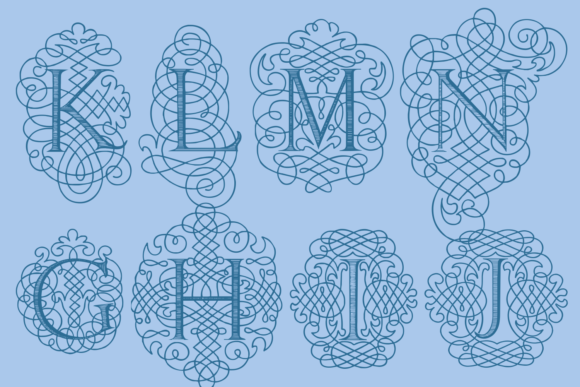
Introducing CalligraphiaLatina, the enchanting display font that will captivate your designs with its intricate beauty. Immerse yourself in a world of elegance and sophistication as this masterpiece unfolds its charm upon your creations.
Inspired by the timeless art of calligraphy, CalligraphiaLatina embodies the essence of artistry and attention to detail. Its strokes dance across the page like a symphony, creating a mesmerizing visual feast that elevates your designs to new heights.
As a global bestseller from IntellectaDesign, CalligraphiaLatina has earned its place among the most sought-after ornament fonts. Its family of 13 distinct sets provides a comprehensive collection of intricate flourishes and embellishments, empowering you to unleash your creativity without boundaries.
Whether you're crafting invitations that exude timeless elegance, designing logos that demand attention, or creating social media graphics that captivate the eye, CalligraphiaLatina is the font that transforms your vision into reality. Its versatility extends to a myriad of styles, ensuring that it seamlessly complements any design aesthetic.
Don't settle for ordinary fonts that fade into the background. Embrace the captivating allure of CalligraphiaLatina and watch your designs blossom with unparalleled grace and beauty. Let this masterpiece become your creative ally, empowering you to create designs that leave a lasting impression.